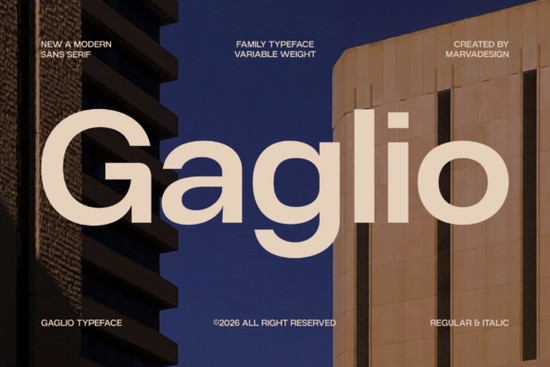
If you're on the lookout for a modern sans serif typeface that combines geometric precision with a clean, architectural feel, Gaglio Font is worth considering. This versatile font family is designed to bring a polished and professional look to your creative projects, whether you're working on high-end corporate branding or sleek mobile interfaces.
Why Choose Gaglio Font?
Gaglio stands out with its large x-height and generous apertures, which ensure exceptional readability. Its variable weight system and inclusion of both regular and italic styles make it a flexible choice for a wide range of design needs. Whether you're designing a tech startup logo or an editorial layout, Gaglio offers a sophisticated, professional edge.
Key Features of Gaglio Font
- Geometric Precision: Clean, architectural lines that give a modern and minimalistic feel.
- Variable Weight System: Allows for a range of weights, making it adaptable to different design requirements.
- Regular and Italic Styles: Offers versatility in text styling for both print and digital use.
- Large X-Height and Generous Apertures: Enhances readability, making it suitable for both long and short texts.
Perfect for Various Design Projects
Using Gaglio in Corporate Branding
One of the standout features of Gaglio is its ability to balance corporate authority with contemporary minimalism. This makes it an excellent choice for corporate branding. The font's clean lines and professional appearance can help establish a strong, trustworthy brand identity. If you need more options, Ragonte Font is another great choice for corporate and business designs.
Gaglio in Editorial Layouts
For editorial layouts, Gaglio's readability and versatility are key. The large x-height and generous apertures make it easy to read, even in smaller sizes. This is particularly useful for magazines, brochures, and other printed materials where clarity is crucial. If you're looking for a similar font with a slightly different character, Savora Font is a good alternative.
Where to Use Gaglio Font
Gaglio is not just limited to corporate and editorial uses. It's also perfect for tech startup logos, sleek mobile interfaces, and any project that requires a modern, minimalist touch. The font's adaptability and clean lines make it a go-to choice for designers who want to create a polished and professional look.
Tips for Using Gaglio Font Effectively
- Pair with Complementary Fonts: Combine Gaglio with other sans serif fonts like Life Planner Duo or Amavera to create a harmonious design.
- Experiment with Weights: Utilize the variable weight system to add depth and hierarchy to your designs.
- Test Readability: Ensure that the font is readable at different sizes, especially for long-form content.